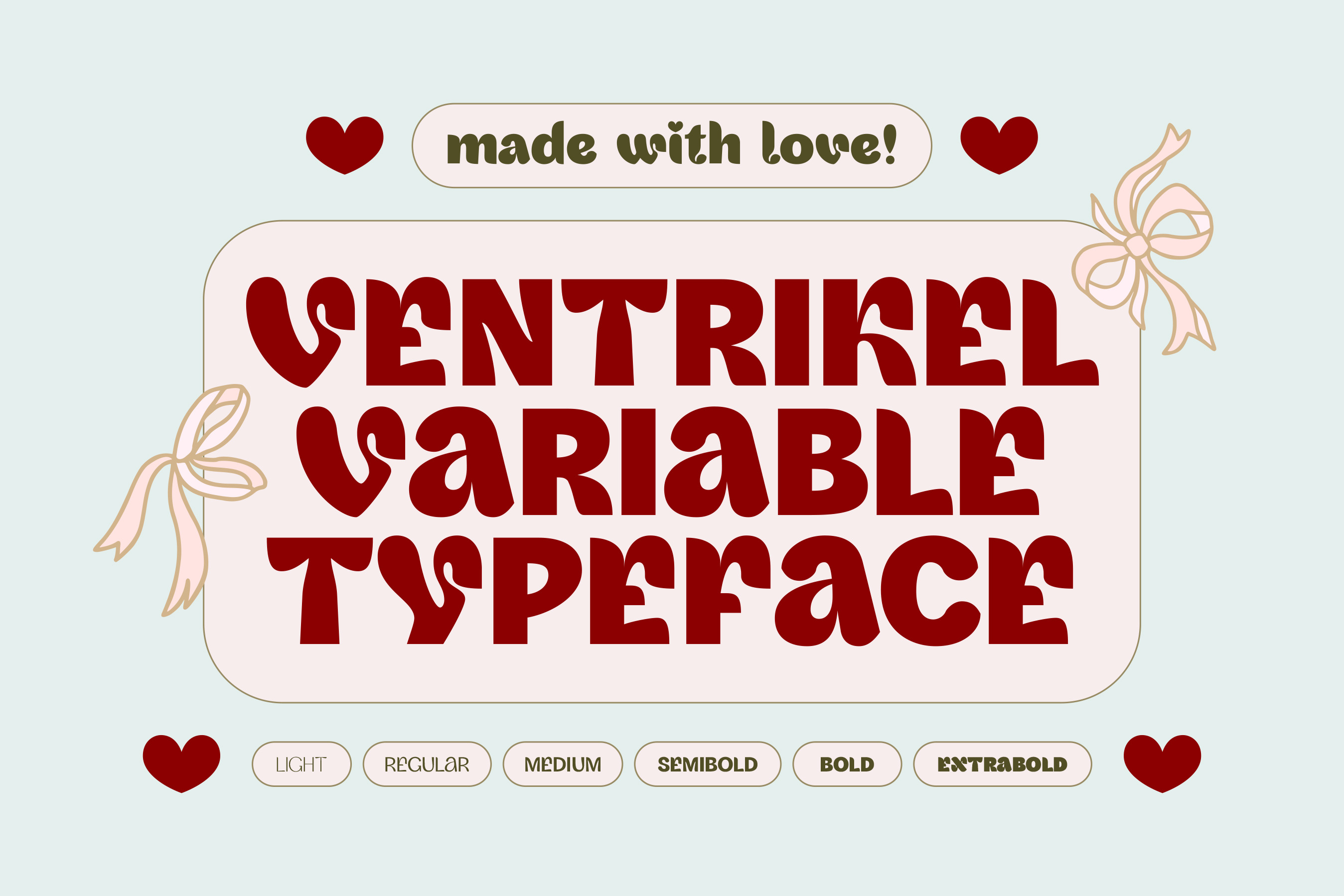
VENTRIKEL Display Variable Font
VENTRIKEL is a unique and whimsical display sans serif typeface, created to portray the playfulness of romance. Its name is derived from the word ventricle, referring to the two main chambers of the heart, left and right. The font features a distinctive set of characters that subtly resemble the shape of a heart or a symbol of love, most notably in the letters v, w, y, as well as in the tittle of the lowercase i and j.
6 multiple weights (light, regular, medium, semibold, bold, & extrabold)
lowercase & uppercase characters
numerals
symbols & punctuations
multilingual characters
Ventrikel typeface is suitable for playing cards, identity design, prints, editorials, event invitations, greeting cards, posters, website design, app, branding, menus, logo design, letters, stationeries, accessories, or any creative projects.